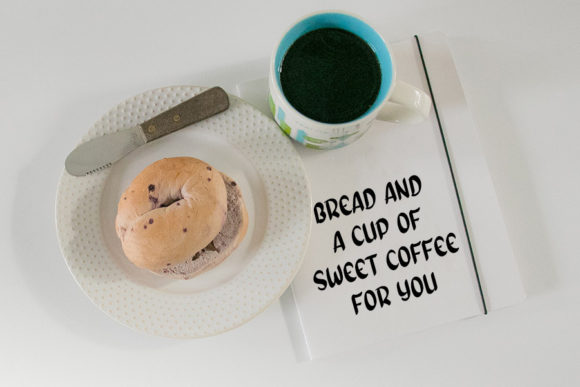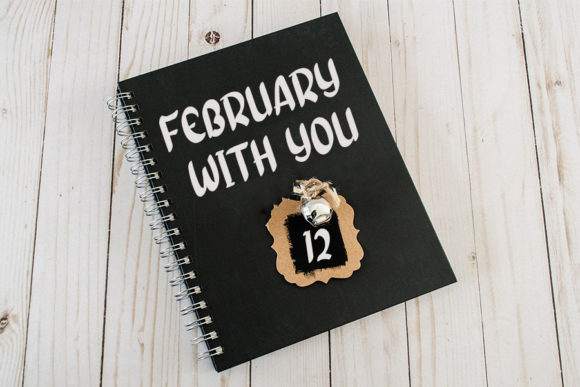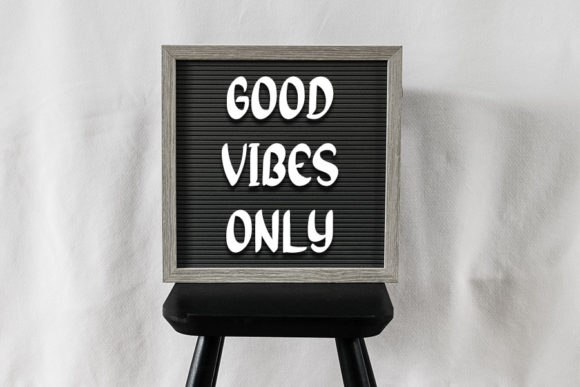
Introduction to Cute Dolphins Font
Cute Dolphins is a playful and smart looking display font with an impeccable form, inspired by a timeless calligraphy.
Balanced and varied, this font was designed to enhance the beauty of your projects .
Key Features of Cute Dolphins Font